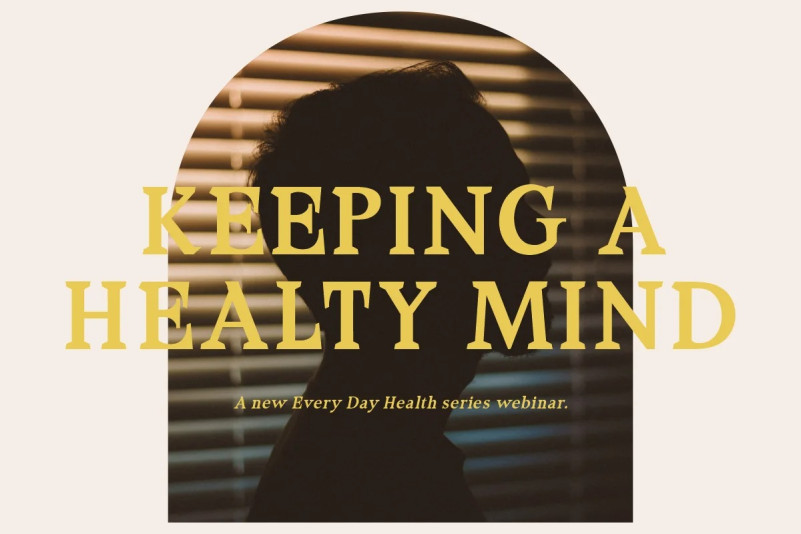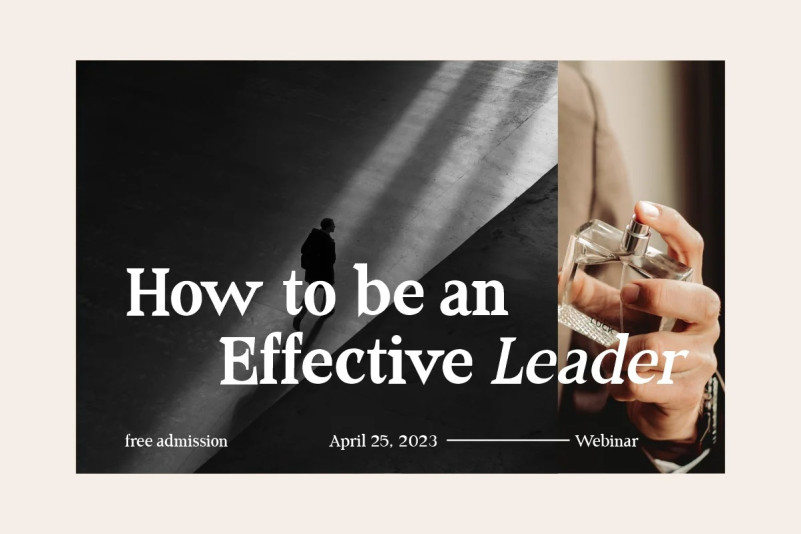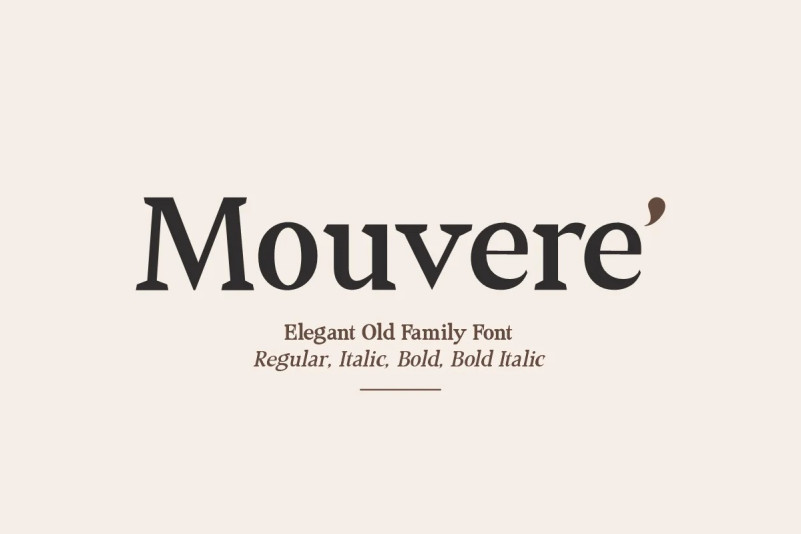
Mouvere ‘ Font
Mouvere’ – Old Style Serif Family, comes with four types of typefaces, Regular, Italic, Bold, and Bold Italic.
This font is very suitable to be applied in various aspects of design, and your branding. It’s perfect for logos, branding, title, social media posts, advertisements, product packaging, product designs, label, photography, watermark, special event, magazine, web designs, etc.